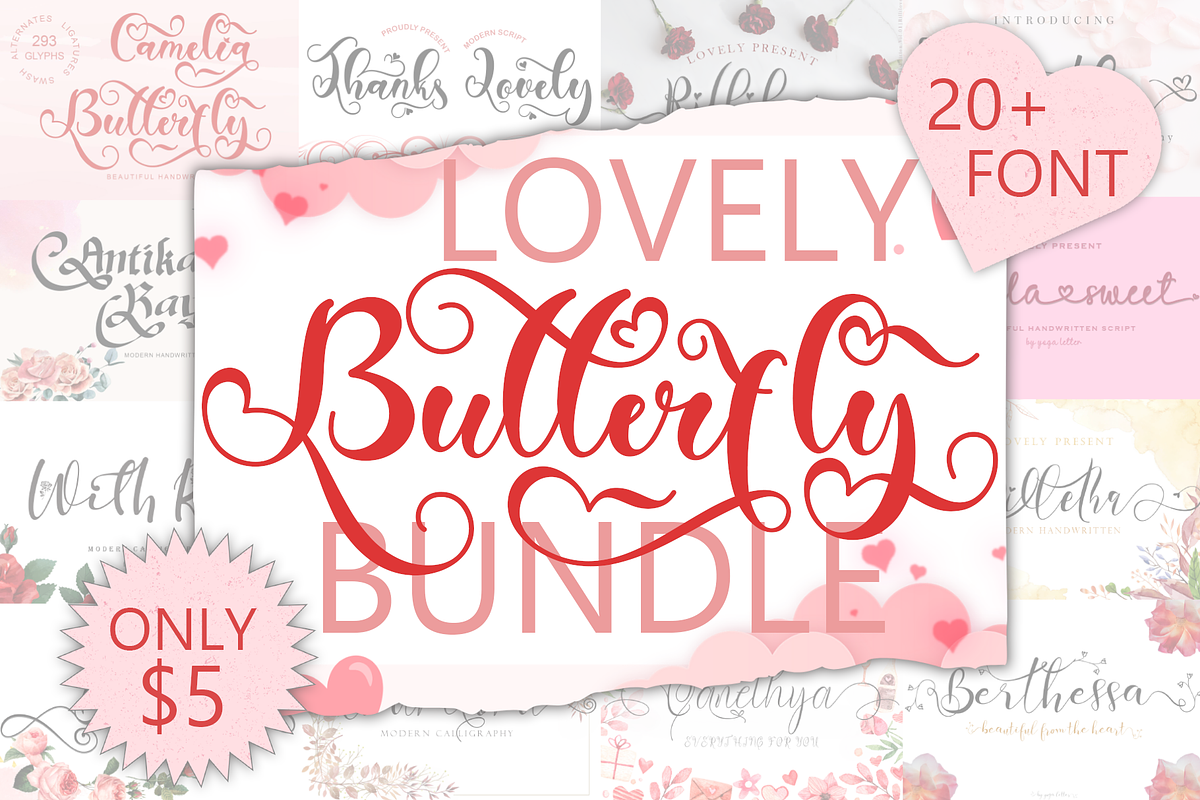
Lovely Butterfly Bundle
This set includes 20 font beautiful and popular fonts !!!
- Thanks lovely
- Camelia Butterfly
- Rililove
- Agatha
- Antikan Rayo
- Light Sunday
- Mella Sweet
- Melathi
- High Moon
- With Rose
- Charllona
- Qanethya
- Dhefentha
- Bhaillia
- Roshalia
- Balissha
- Dabistha
- Monalissa
- Billetha
- Berthessa
This bundle is perfect for a variety of projects such as christmas, weddings, designs, branding, logos, invitations, stationery, social media posts, advertisements, product packaging, product designs, labels, photography, valentine, easter, mother day, father day, watermarks, special events or whatever.